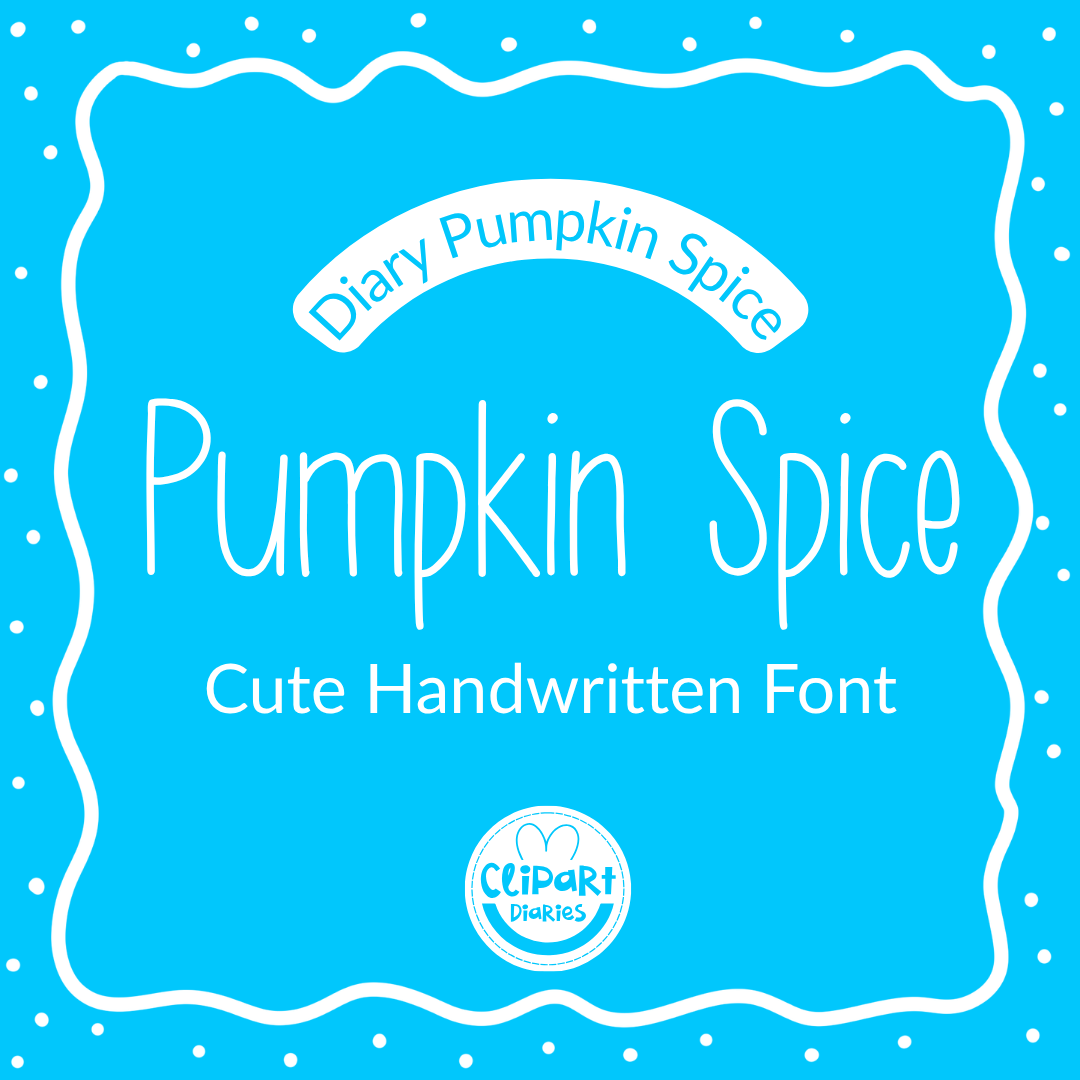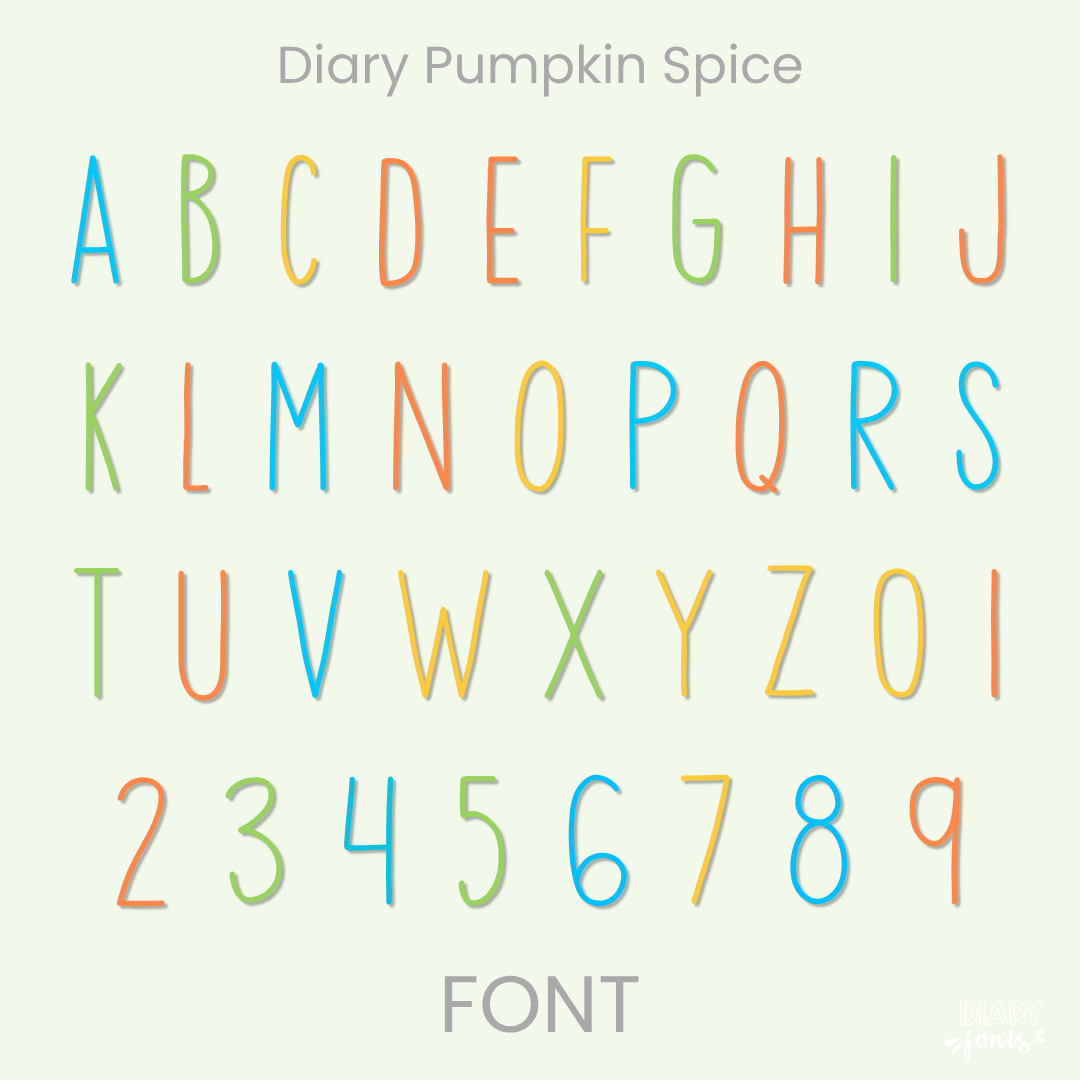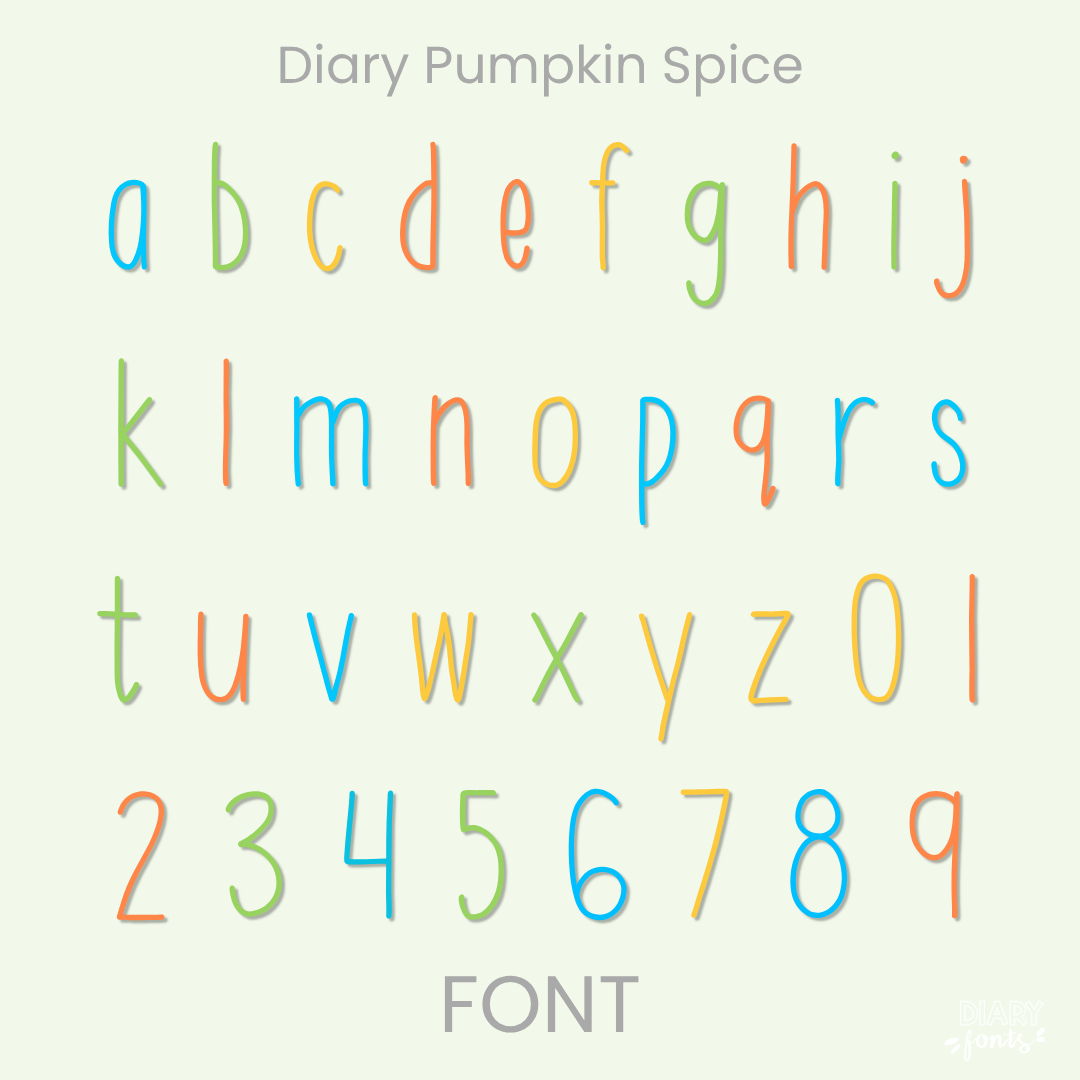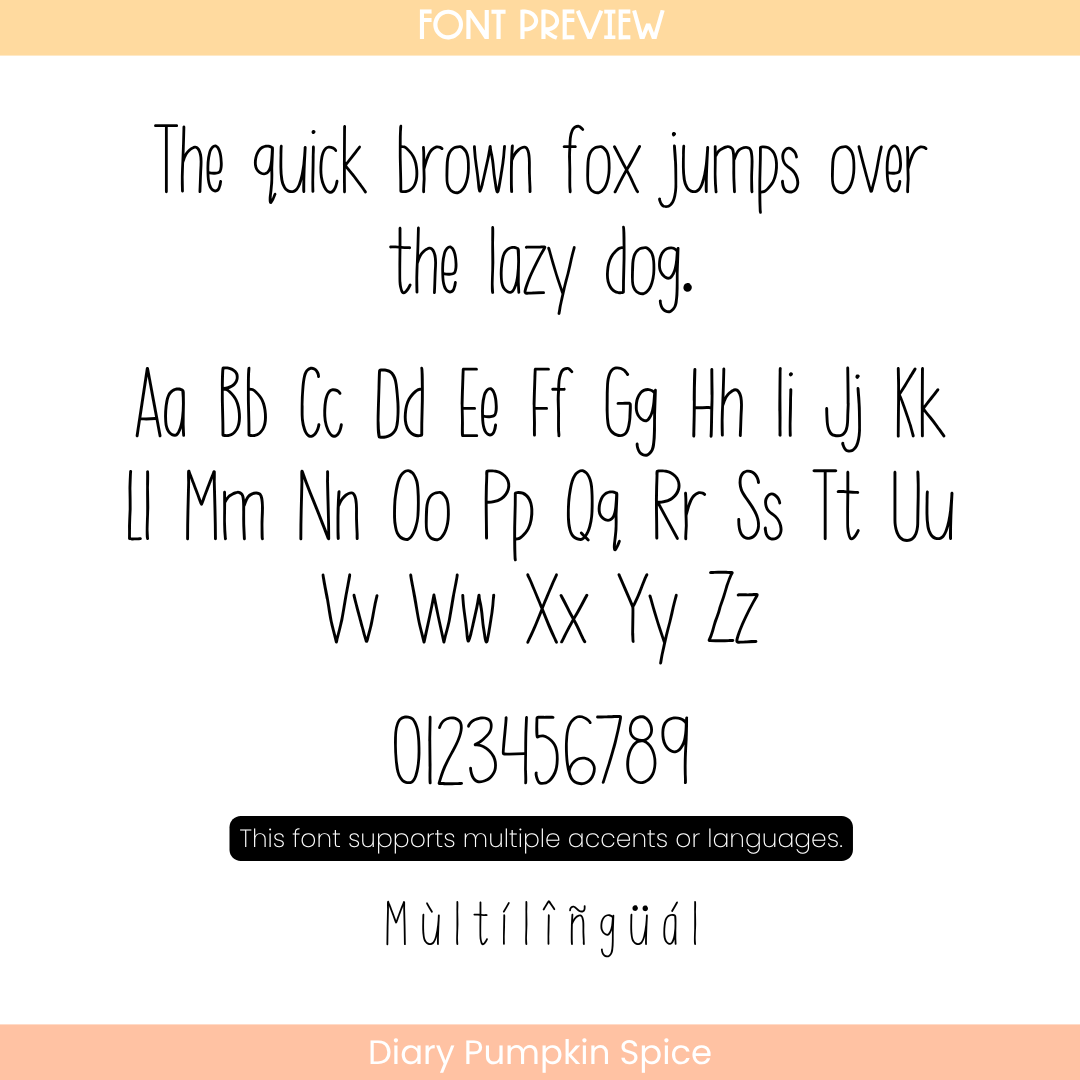
Diary Pumpkin Spice offers a light and relaxed print style that gives educational resources a natural, hand-crafted look. The letters feature gentle, organic paths with a slight bounce and variations in height, mimicking real handwriting while keeping individual characters cleanly separated. This upright and clear structure avoids excessive slants, ensuring that text remains easy for young students to track and read.
This font is a practical option for seasonal autumn activities, primary grade worksheets, instructional slide decks, morning announcements, and classroom organization labels. The layout includes a complete set of uppercase and lowercase letters, matching numbers, and accents for multilingual layouts. It installs quickly on desktop computers and operates smoothly across software like MS Office, Canva, and Adobe Apps, as well as on iPad tools like GoodNotes and Procreate. It provides a neat yet approachable aesthetic for personal classroom projects or commercial teacher resource development.